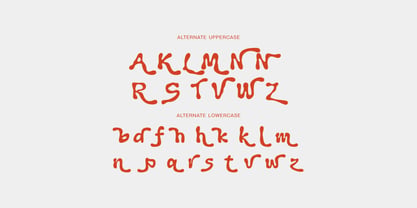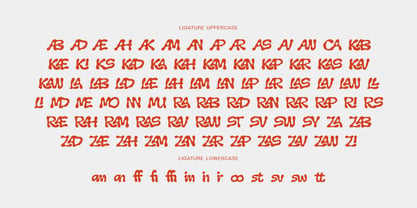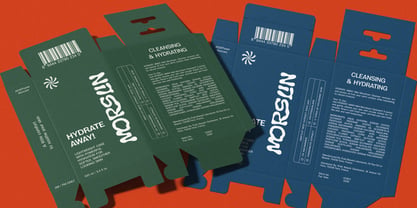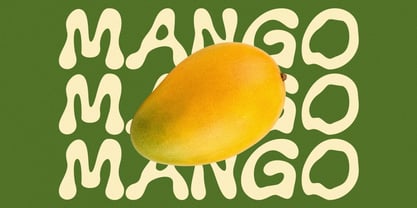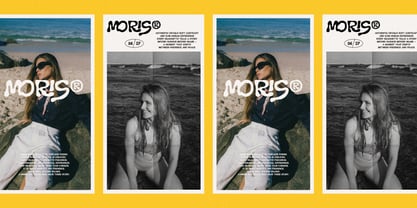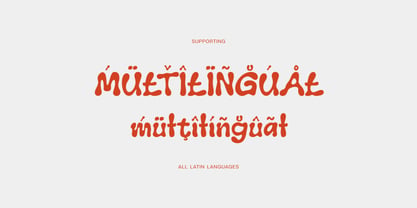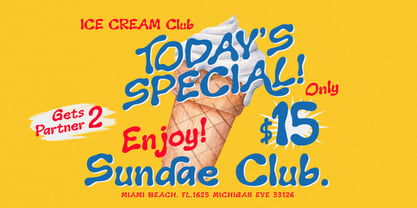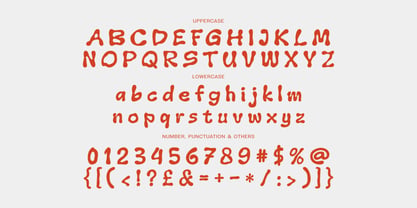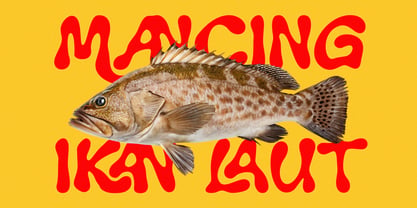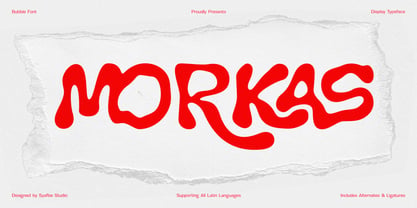
Morkas
par Syafbe
La famille de polices Morkas a été conçue par Syafwan Mus et publiée par Syafbe. Morkas contient 1 styles. En savoir plus sur cette famille
Morkas is a bold and expressive bubble display typeface inspired by organic shapes, handmade lettering, and playful visual expressions. Designed with soft curves, fluid strokes, and a unique hand-crafted personality, Morkas brings a fun and energetic character to every word it creates. Its imperfect yet intentional forms give a warm human touch, making designs feel more authentic and memorable.
Built for creative projects that need a strong visual identity, Morkas works beautifully for branding, logos, packaging, posters, editorial layouts, apparel designs, social media graphics, and creative advertising. The rounded letterforms and playful rhythm create a friendly atmosphere while maintaining a bold presence that easily captures attention.